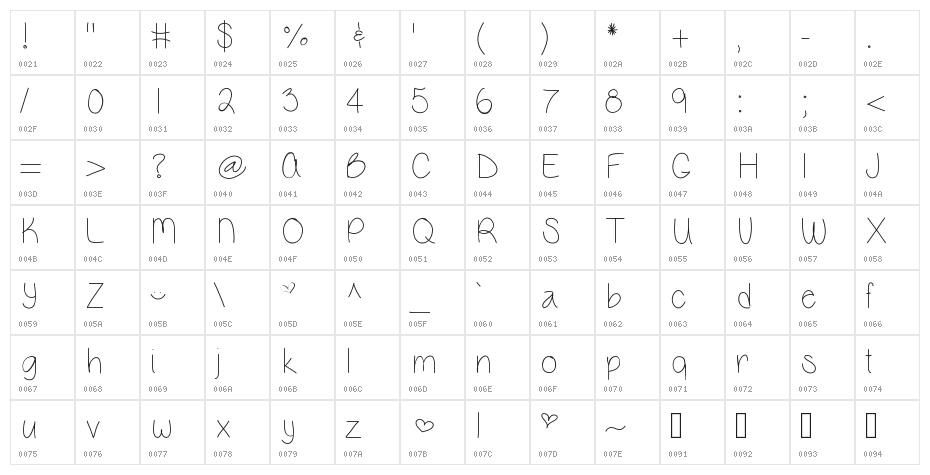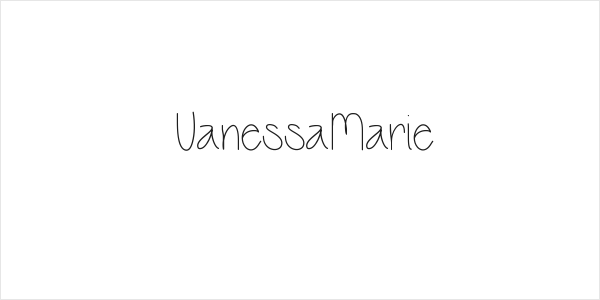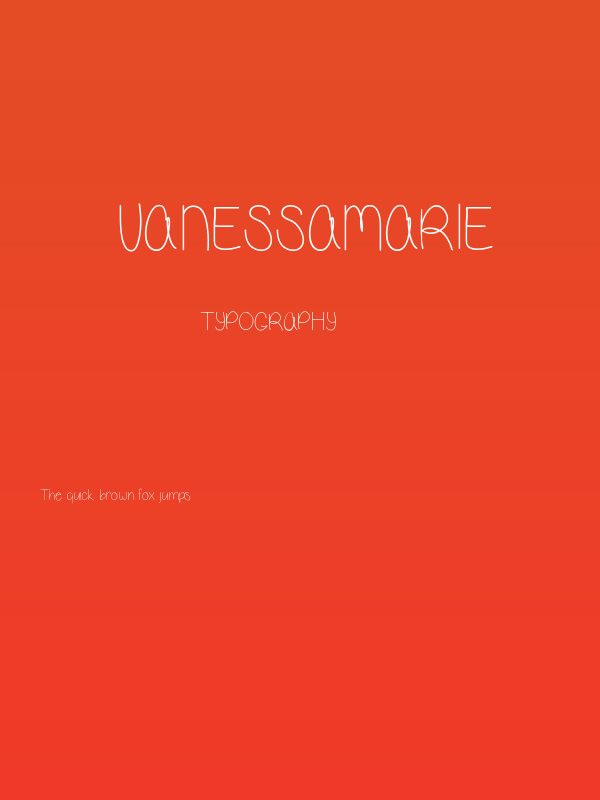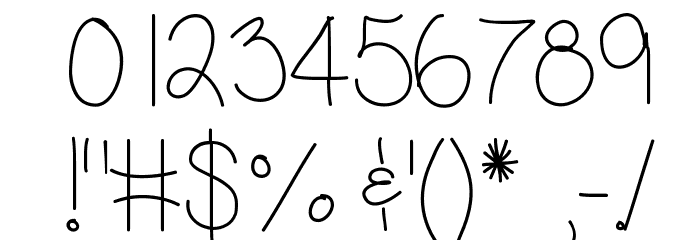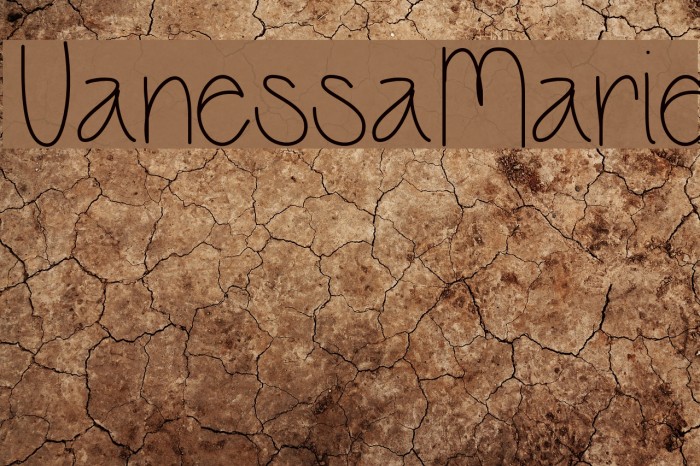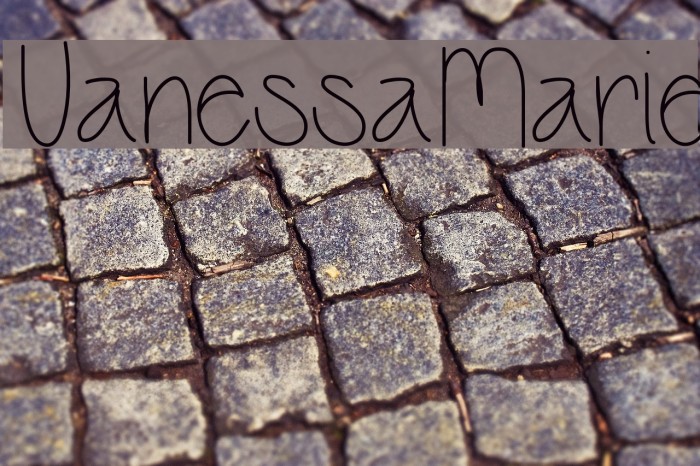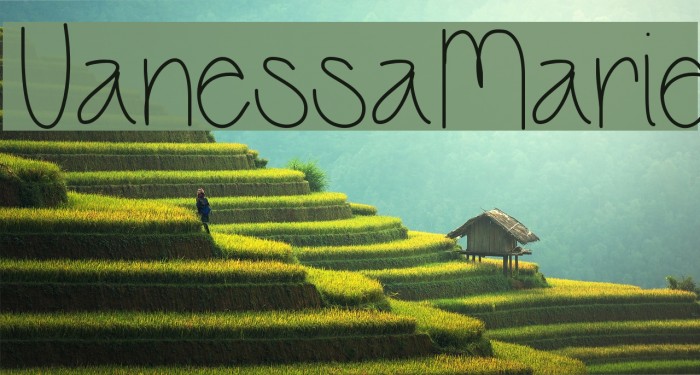
VanessaMarie Font
VanessaMarie Description
This font features a playful and whimsical design, characterized by its thin, flowing lines and slightly irregular shapes. The letters have a hand-drawn quality, with a casual and friendly appearance. The uppercase and lowercase letters maintain a consistent style, with rounded edges and a slight slant, adding to the informal feel. The numerals and special characters follow the same aesthetic, ensuring a cohesive look across all text. This font is ideal for projects that require a personal touch, such as invitations, greeting cards, or creative branding.
| Proposed Projects | Ideal for invitations, greeting cards, creative branding, and playful designs. |